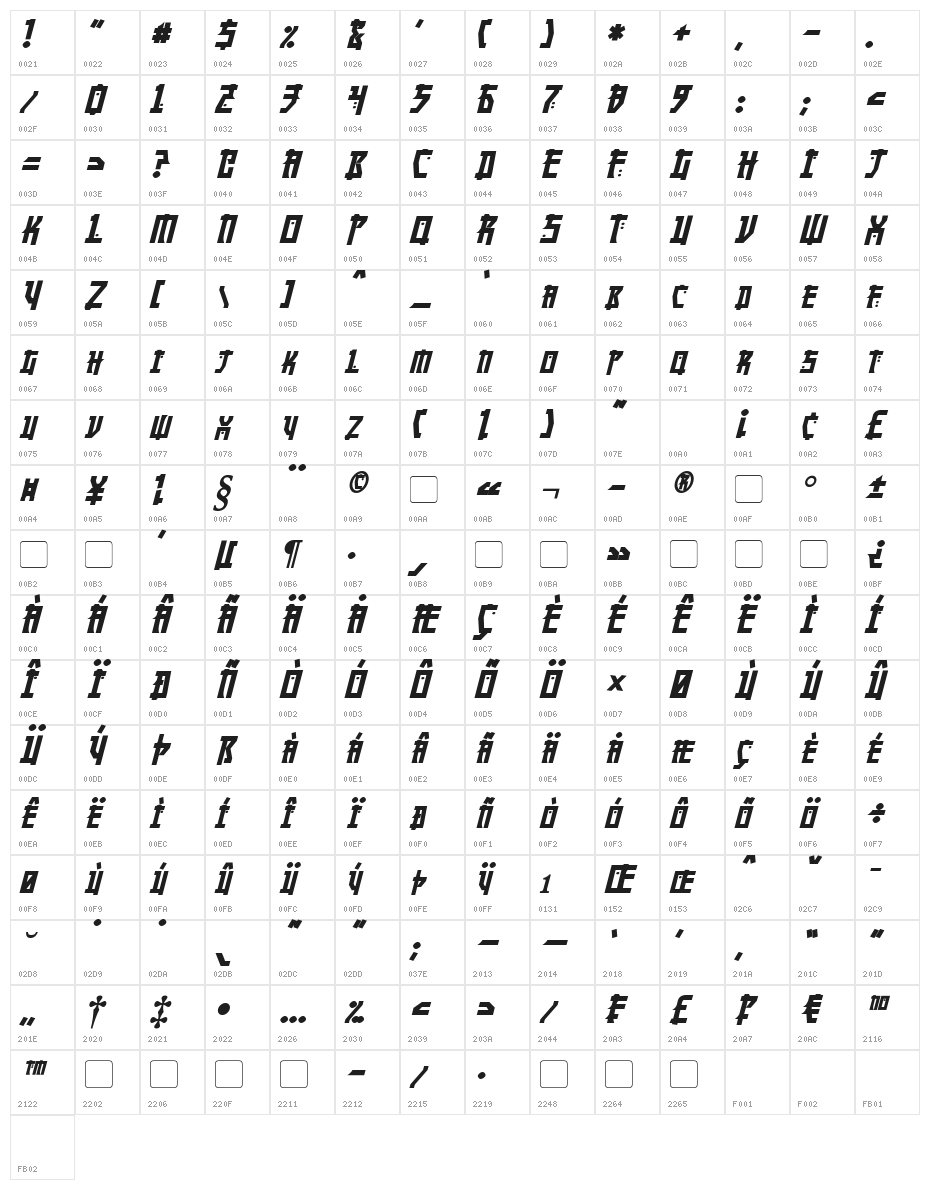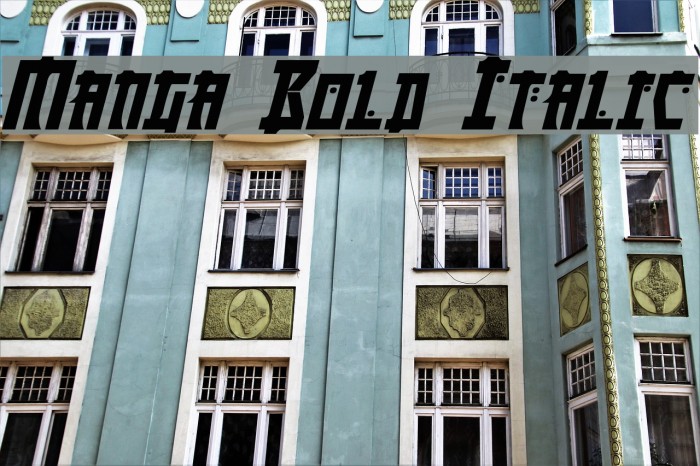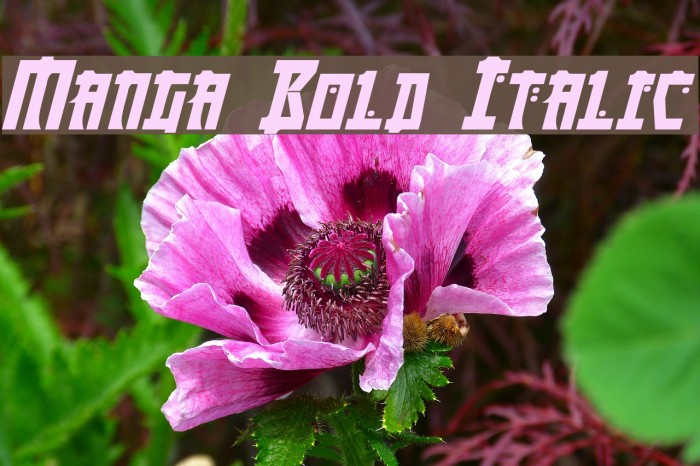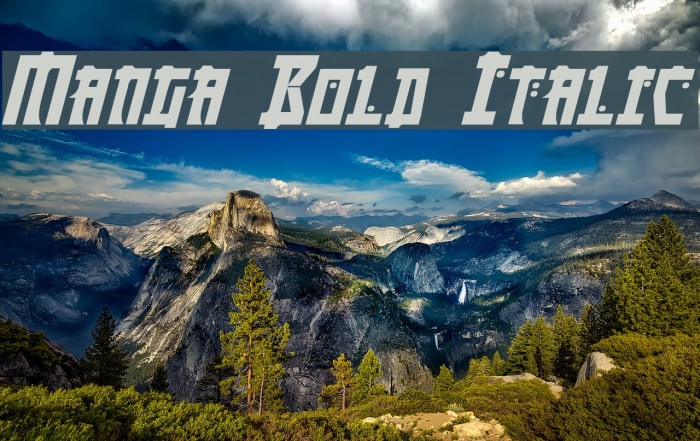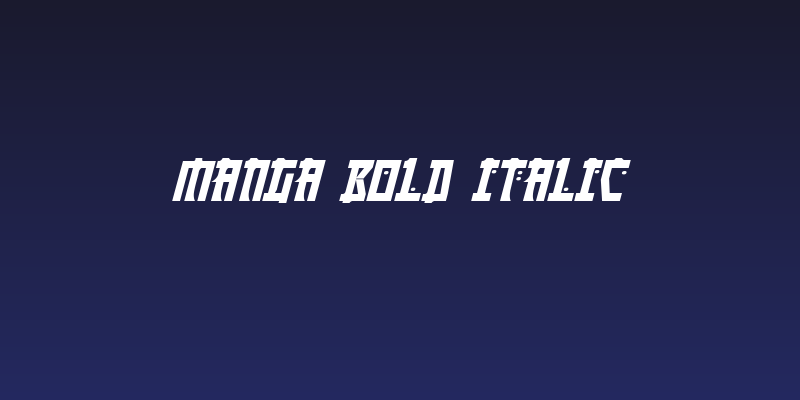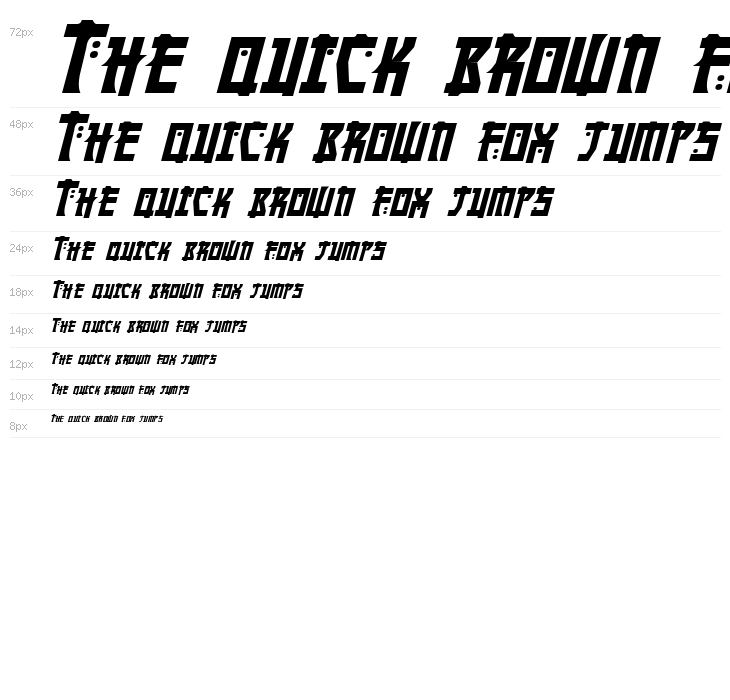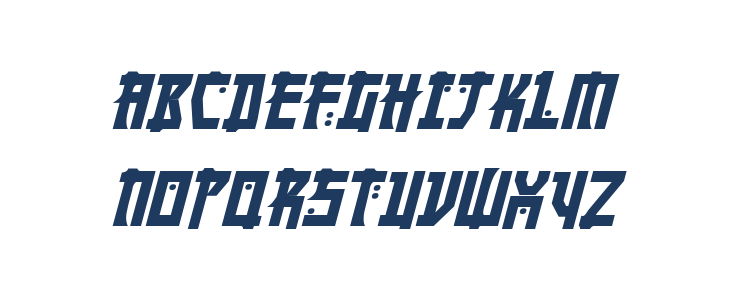
Manga Bold Italic Font
Manga Bold Italic Description
This font features a bold and italicized style with a distinct geometric and angular design. The characters are constructed with sharp edges and a futuristic aesthetic, giving them a unique and striking appearance. The uppercase and lowercase letters maintain a consistent style, with the lowercase mirroring the uppercase in form. Numbers and special characters follow the same design principles, ensuring uniformity across all elements. The font's boldness and angularity make it stand out, while the italic slant adds a dynamic and forward-moving feel. This combination of features makes it ideal for projects that require a modern and edgy look.
| Overall Style | Futuristic, Edgy |
| Proposed Projects | Ideal for sci-fi themed designs, video game graphics, posters, and branding that seeks a modern, edgy look. |